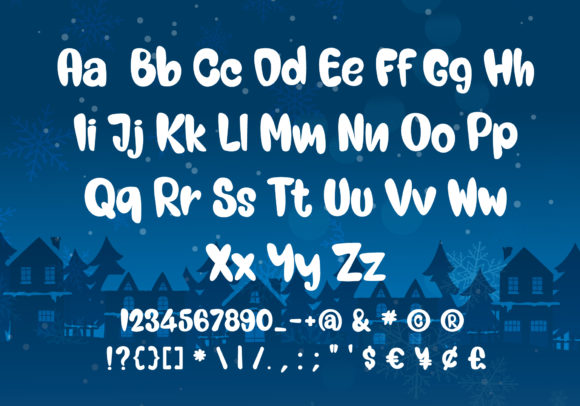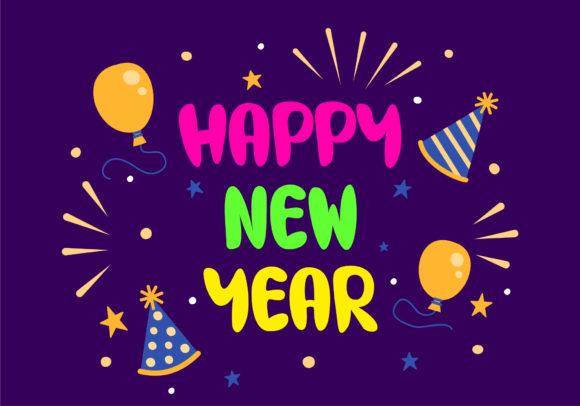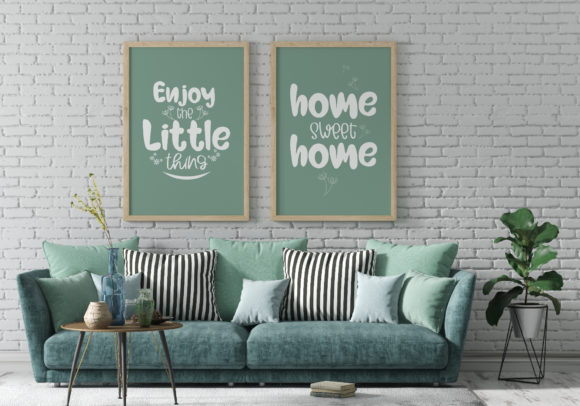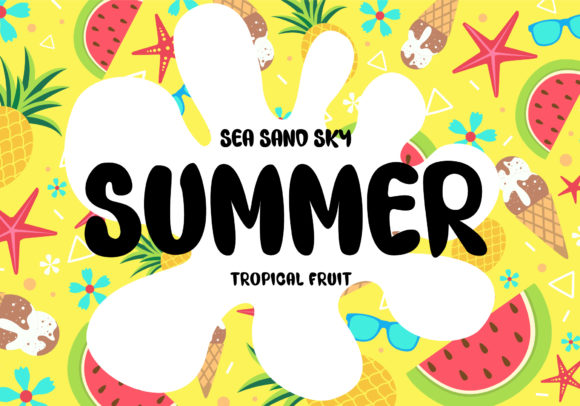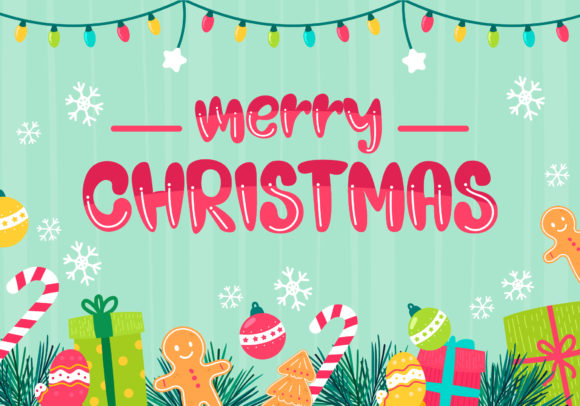
Snow Man: Embrace the Sweet and Chunky Lettered Display Font
Introducing Snow Man, a font that embodies sweetness and charm with its delightful chunky lettered display style. Its unique and captivating appearance makes it stand out from the crowd, adding a touch of playfulness to your creative ideas. Whether you’re designing holiday-themed projects, crafting eye-catching posters, creating fun social media graphics, or any other design that needs a standout display font—Snow Man is the perfect choice. Add this font to your designs and watch as it elevates your creations to new levels of creativity and joy!
The allure of Snow Man lies in its sweet and chunky lettered nature. Each letter is crafted with a touch of playfulness, making your designs stand out and capture attention with ease.
Designing with Snow Man is a delightful experience. Its unique strokes and captivating style bring a sense of authenticity to your creations, making them truly special and eye-catching.
Fall in love with the versatility of Snow Man. Whether you’re designing for the holiday season or infusing fun into your projects, this font adapts effortlessly to suit your creative vision.
Unleash your creativity with Snow Man. Its chunky and playful appearance allows you to create designs that exude joy and creativity, making them impossible to ignore.
Gorgeous designs come to life with Snow Man’s sweet and chunky lettered display style. Whether you’re creating holiday-themed graphics or designing attention-grabbing posters, this font adds a touch of fun that delights your audience.
In conclusion, Snow Man is more than just a font; it’s a sweet and chunky lettered masterpiece that invites you to infuse your creative ideas with a touch of playfulness. Embrace its delightful nature, and let it become the heart of your most cherished projects. Whether you’re celebrating the holiday season or adding a whimsical element to your designs, Snow Man will be your trusted companion, adding a touch of joy and creativity. Allow this font to unlock the full potential of your creativity, and watch as your designs come alive with the sweet and chunky lettered spirit of Snow Man. Embrace the playfulness, and let it be the guiding light that leads you to create truly spectacular designs that captivate and delight all who see them.